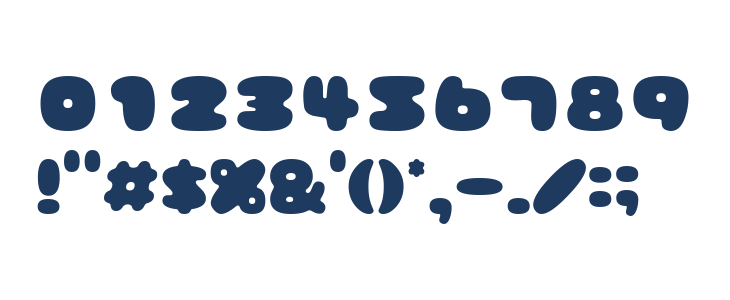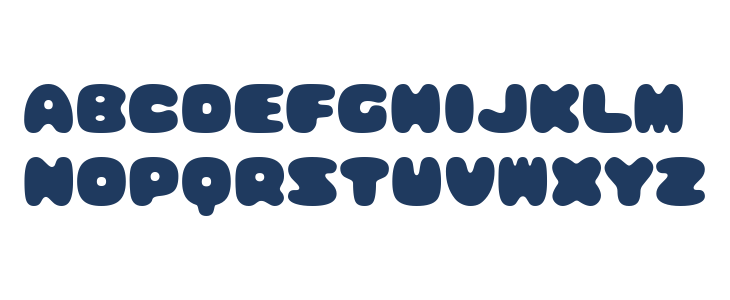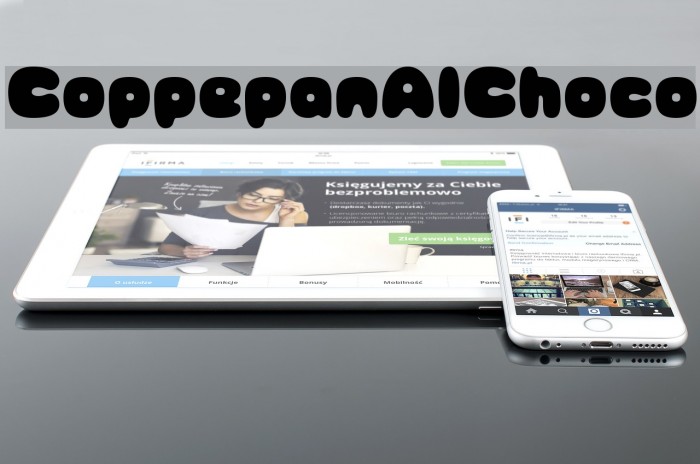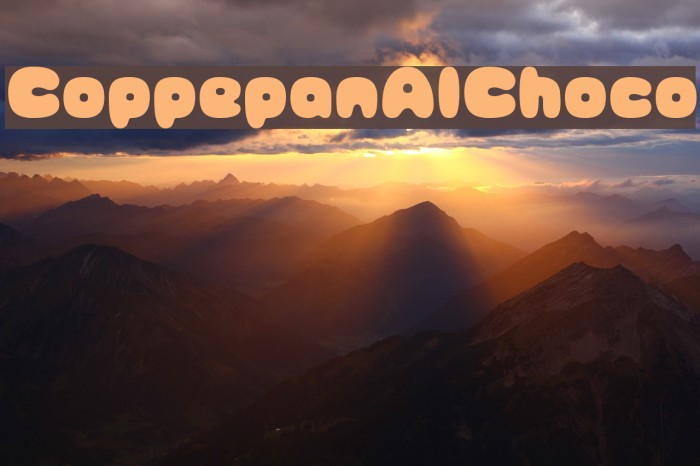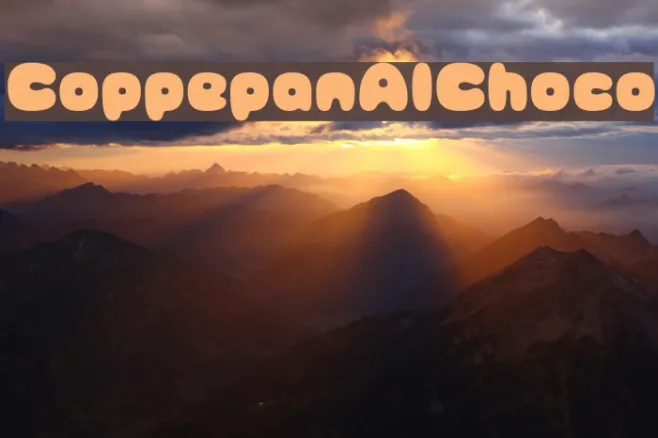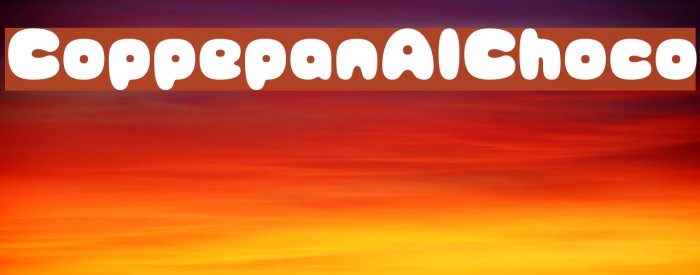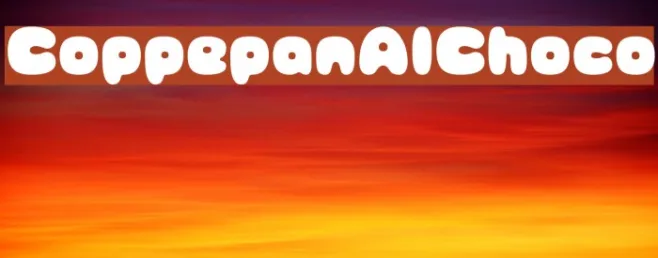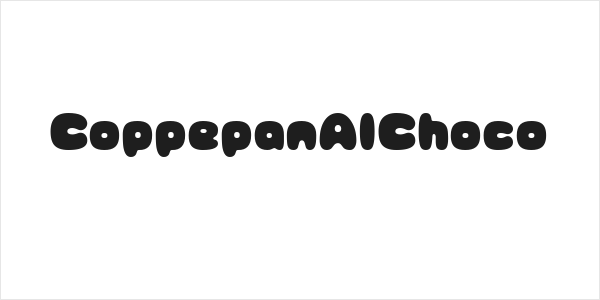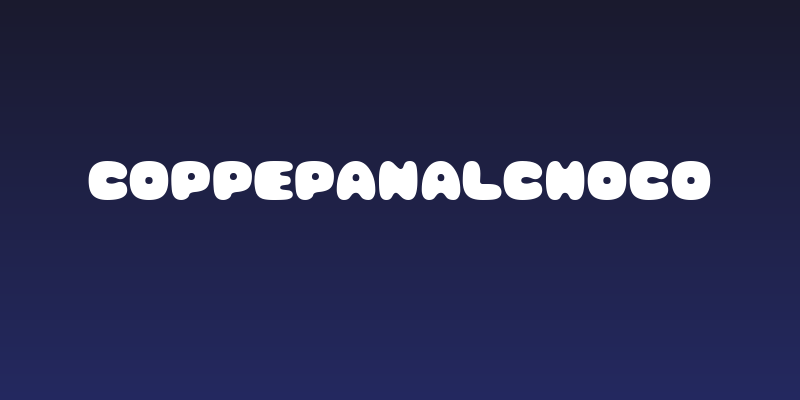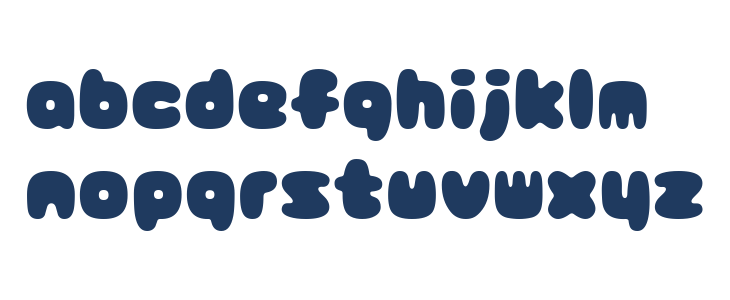
CoppepanAlChoco Font
CoppepanAlChoco Description
This playful and bold font features rounded, bubble-like characters that exude a sense of fun and whimsy. The letters are thick and uniform, with a consistent stroke width that gives them a cohesive appearance. The overall design is reminiscent of cartoon or comic styles, making it ideal for projects that require a lighthearted and approachable feel. The characters are well-spaced, ensuring readability despite their unconventional shapes. The font includes a full set of uppercase and lowercase letters, numbers, and a variety of special characters, making it versatile for different uses.
Overall StylePlayful
Proposed ProjectsIdeal for children's books, playful branding, comic strips, and party invitations.